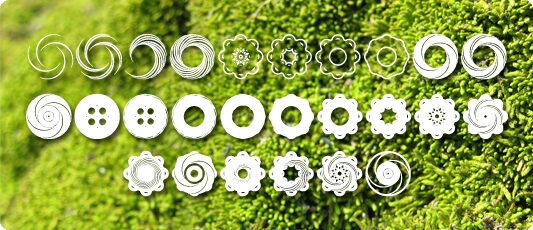
Fluid Spiral by Qkila of On The Fluid is a free abstract symbol font centered on circular forms and swirling linework. The set shifts from airy rings to dense, coiled rosettes.
Digital graphics gain lively motion from these rotating motifs, making the collection useful for music artwork, event posters, and decorative branding. In editorial design, the symbols can become section markers or recurring ornaments that give a magazine's pages a fluid thread.